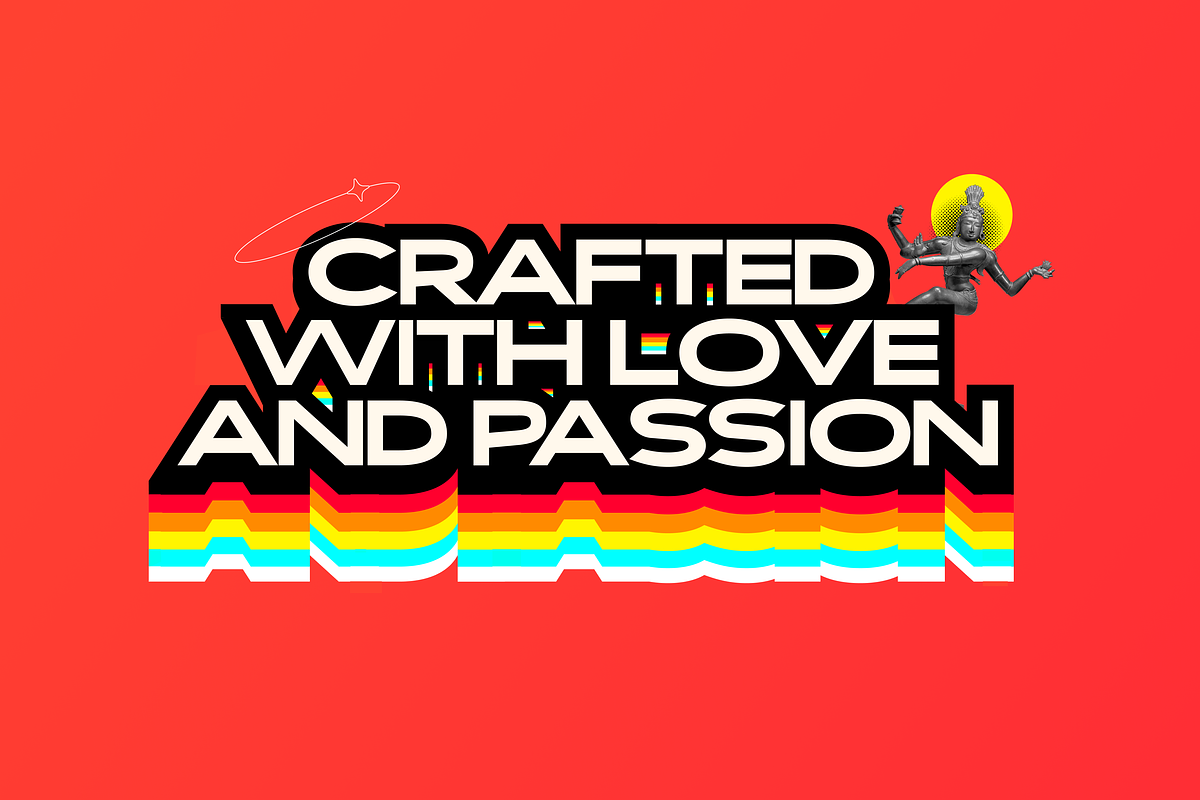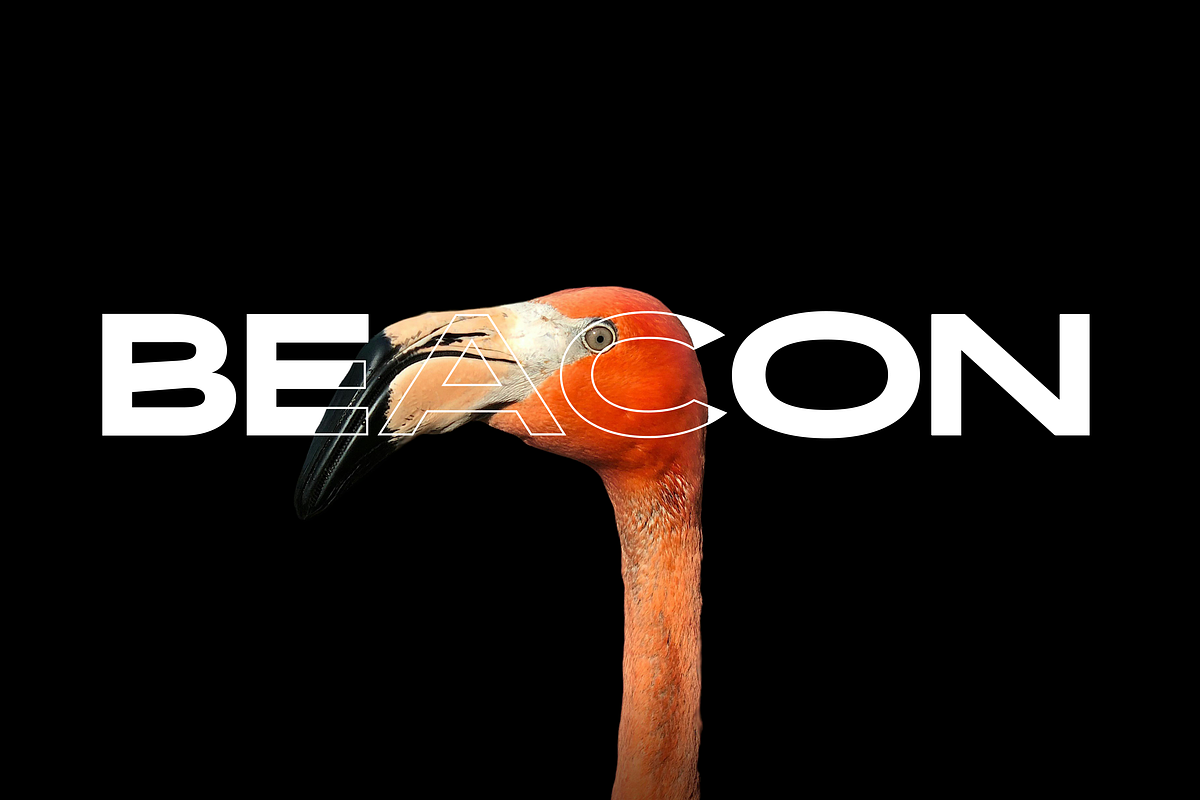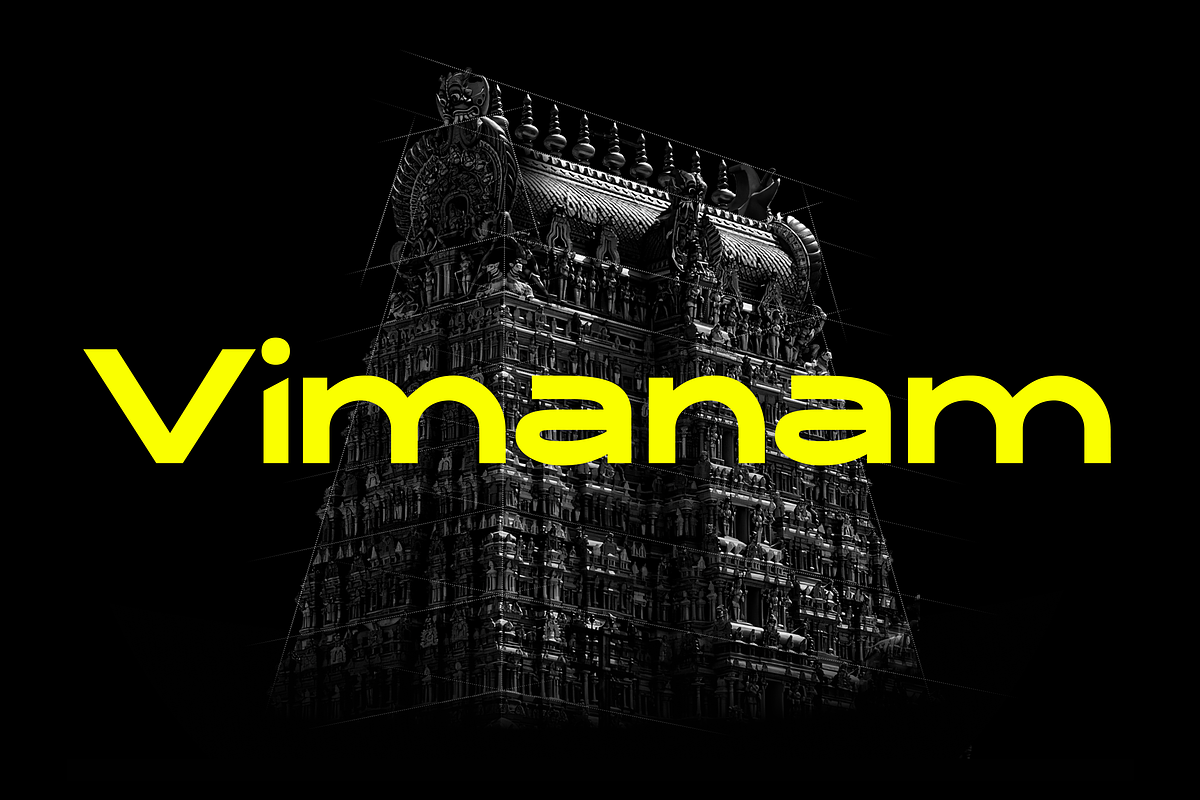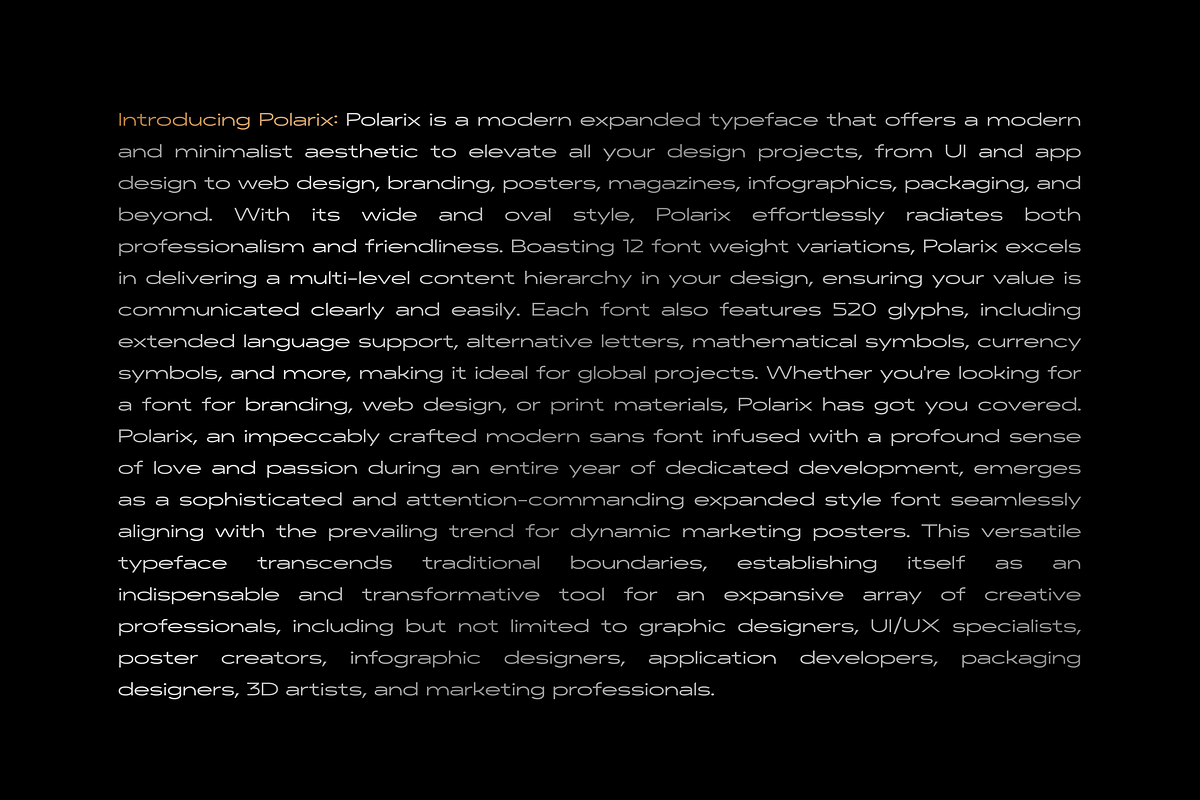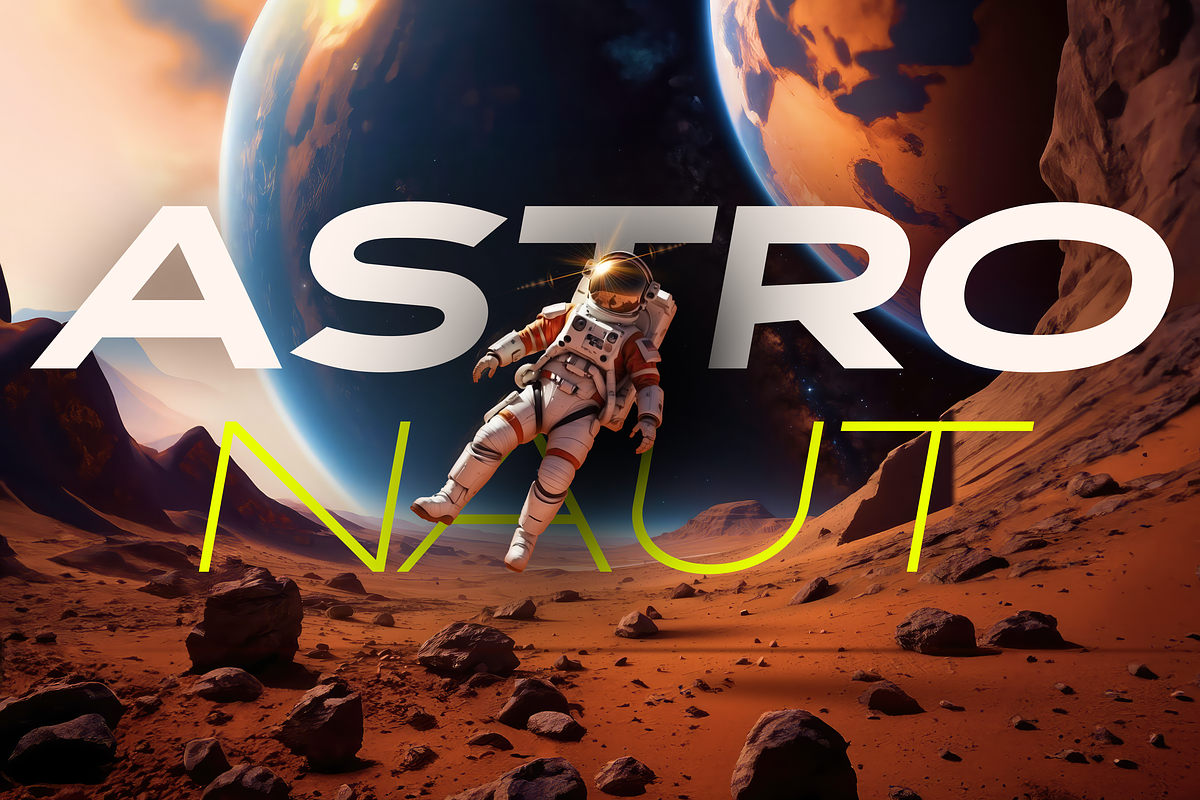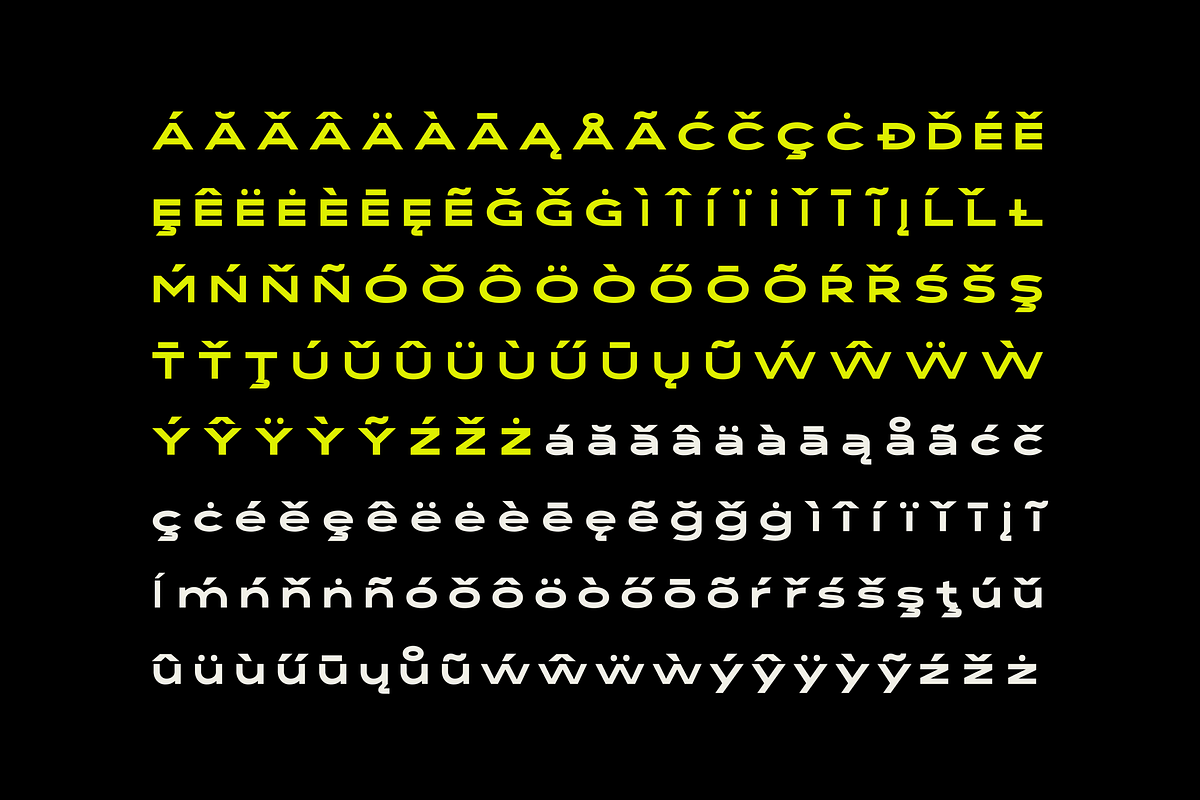
POLARIX FONT FAMILY - 24 fonts
Polarix is a versatile expanded typeface that offers a modern and minimalist aesthetic. With its clean lines and solid structure, this font is perfect for a range of design projects. The font family includes 12 regular and 12 italic variations, giving you a total of 24 different fonts to choose from. Each font also features 520 glyphs, including extended language support, alternative letters, mathematical symbols, currency symbols, and more, making it ideal for global projects. Whether you're looking for a font for branding, web design, or print materials, Polarix has got you covered.
- Extended language support
- Mathematical symbols
- Currency symbols
- Alternate stylish letters
- Directional arrows
- Fraction support
- Special ligatures
- Numerator and Denominator support